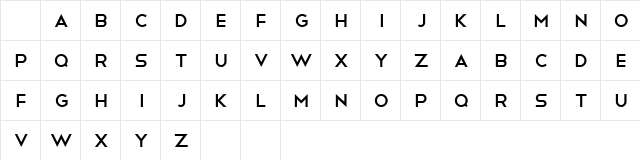
Complete Telegrafico Regular glyph index. Displaying only characters natively supported by Telegrafico Regular font.
Telegrafico is a composed and adaptable typeface that performs quietly and consistently across a wide range of design contexts.